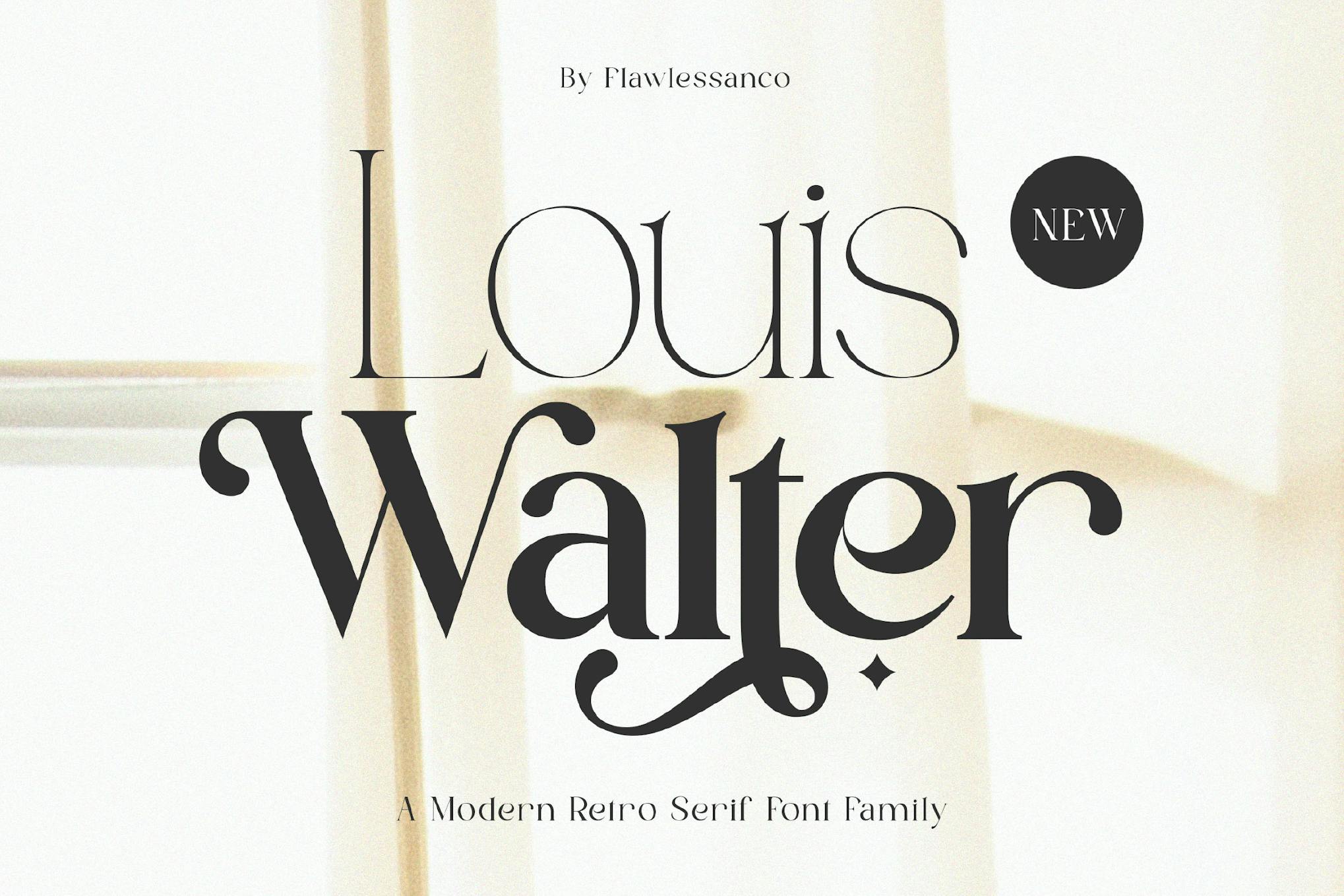
Louis Walter Retro Serif Font Family
Louis Walter Retro Serif Font Family is perfect for classic editorial design, vintage magazine layouts, retro book typography, heritage branding projects, traditional advertising campaigns, nostalgic poster design, elegant packaging applications, sophisticated wedding stationery, and timeless brand identity systems.
What makes Louis Walter Retro Serif Font Family exciting is its magnificent fusion of classical serif tradition with distinctive retro character that captures the essence of mid-century design sophistication. This exceptional typeface family features refined serifs, elegant stroke contrasts, and period-appropriate proportions that embody the golden age of editorial design and luxury branding. The font's distinguished heritage and retro elegance make it ideal for brands that need to communicate timeless quality, sophisticated craftsmanship, and vintage prestige through typography that honors traditional design excellence while maintaining contemporary relevance.
Louis Walter Retro Serif Font Family includes comprehensive vintage variations: Light, Regular, Medium, SemiBold, Bold, ExtraBold, and Display weights, each available in both roman and italic styles. This extensive collection provides 14 beautifully crafted fonts that enable designers to create sophisticated retro typographic hierarchies while maintaining the classic aesthetic throughout comprehensive vintage brand systems and period-inspired communications.
The Louis Walter Retro Serif Font Family Free Download provides access to premium retro typography that instantly elevates any project to vintage luxury standards. This font family excels in publishing industries, heritage brands, luxury services, and cultural institutions where classical refinement and retro authenticity directly influence brand perception and audience appreciation. The period-appropriate proportions ensure exceptional readability while maintaining distinguished vintage character.
Design professionals value Louis Walter Retro Serif Font Family for its versatility and timeless sophistication. The font's balanced contrast and elegant serifs work beautifully in both intimate text applications and grand display settings. Its retro presence appeals to audiences who appreciate quality craftsmanship, historical authenticity, and genuine vintage design excellence.
The comprehensive character set includes vintage ligatures, period ornaments, stylistic alternates, and extensive multilingual support that enhances the font's retro appeal. Louis Walter Retro Serif Font Family Free Download enables creative professionals to explore the complete range of vintage possibilities before investment.
Whether used for heritage luxury brands or contemporary retro-inspired ventures, Louis Walter Retro Serif Font Family consistently delivers exceptional typography that communicates vintage sophistication, classical quality, and timeless elegance that resonates with audiences seeking authentic historical character and enduring design value.